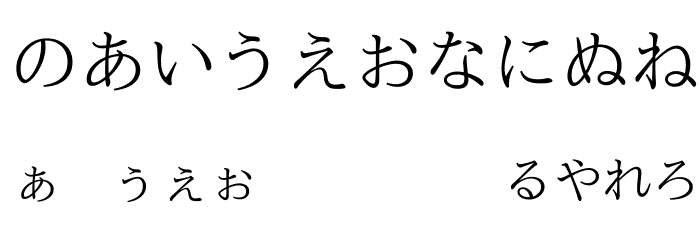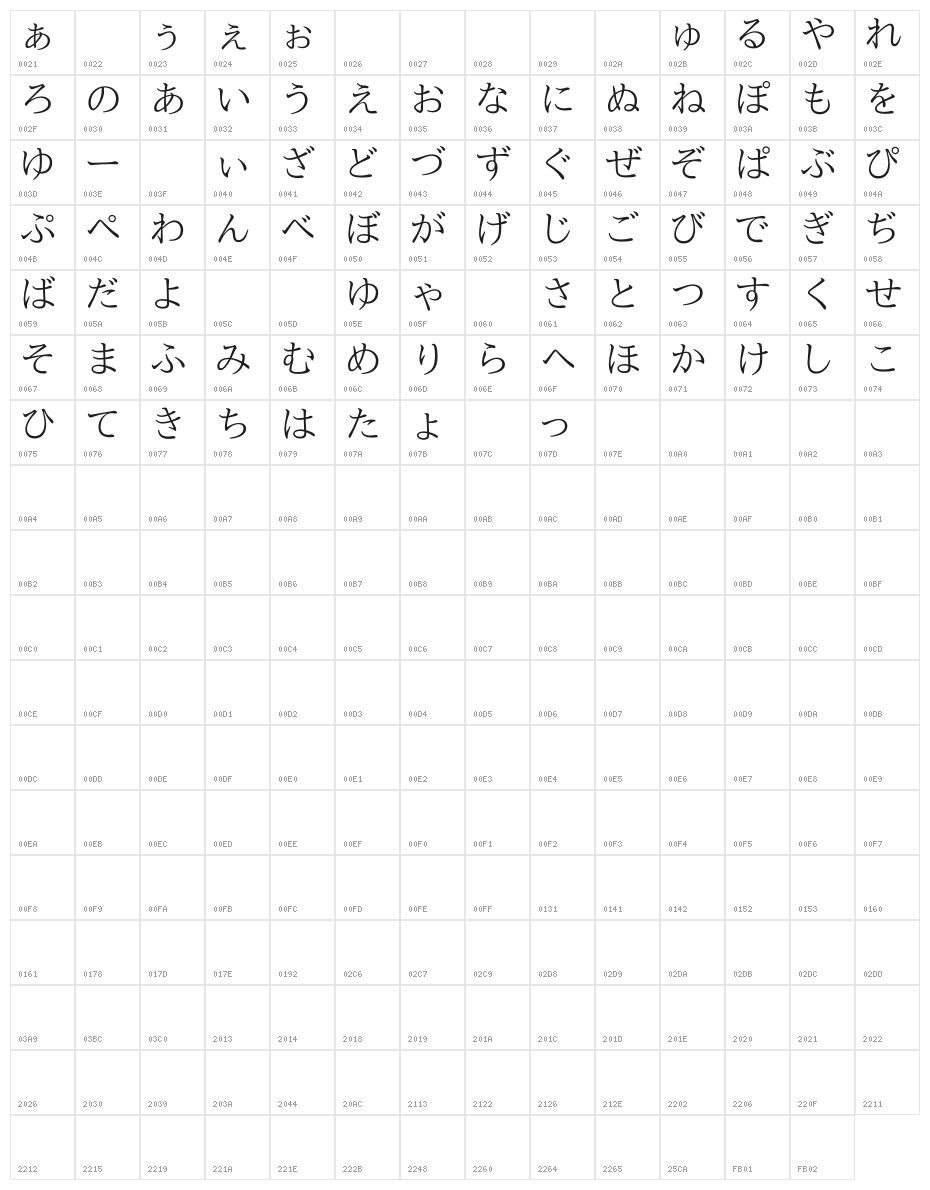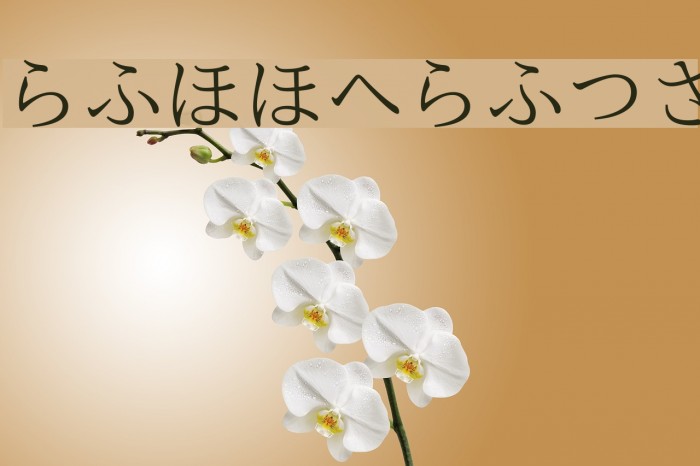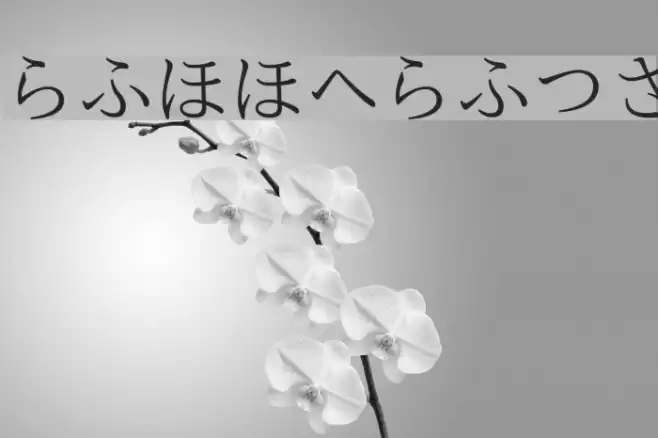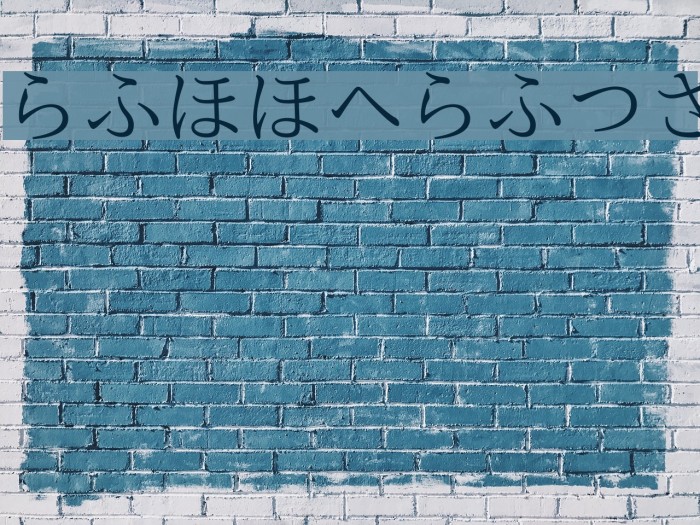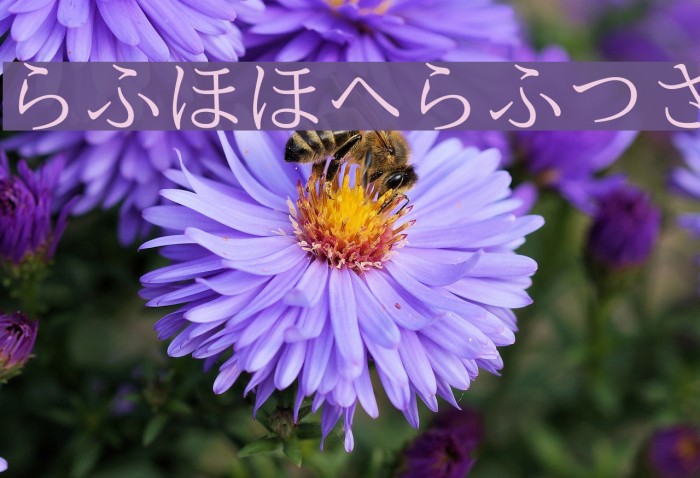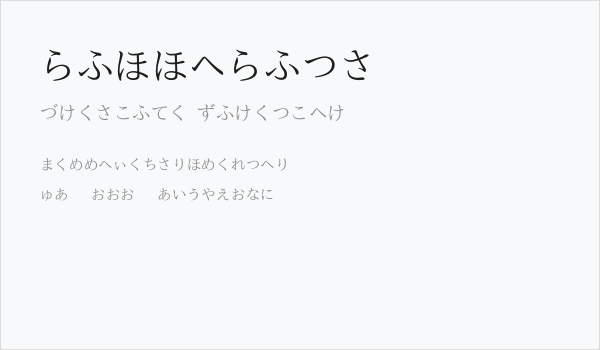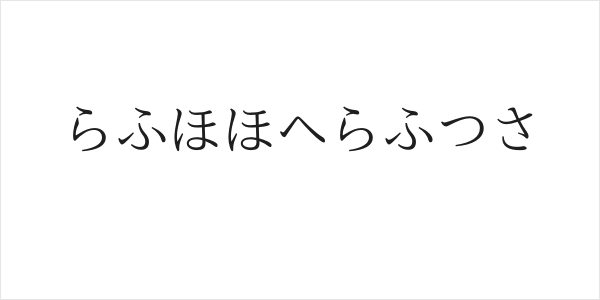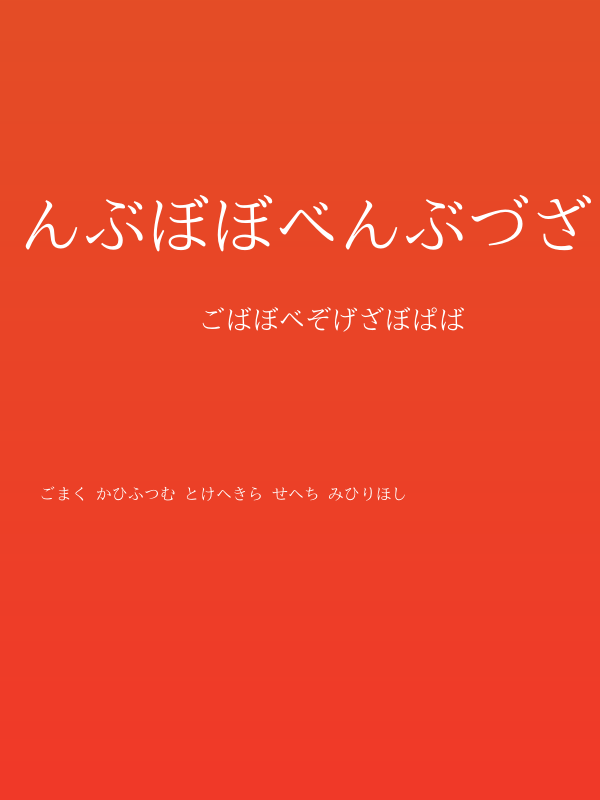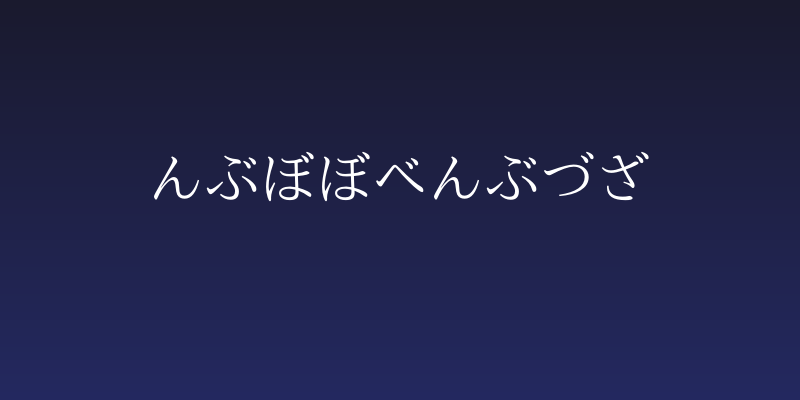
nipponica Font
nipponica Description
This font features a traditional Japanese calligraphic style, characterized by its elegant and flowing strokes. The characters are well-balanced with a harmonious blend of thick and thin lines, giving it a sophisticated and classic appearance. The font maintains a consistent rhythm across all characters, providing a sense of unity and coherence. Its design is reminiscent of handwritten scripts, making it suitable for projects that require a touch of authenticity and cultural richness. The spacing between characters is moderate, ensuring readability while preserving the aesthetic appeal.
| Use Case | Headlines, Artistic designs, Cultural projects |
| Proposed Projects | Ideal for cultural projects, traditional event invitations, artistic designs, and educational materials related to Japanese language and culture. |